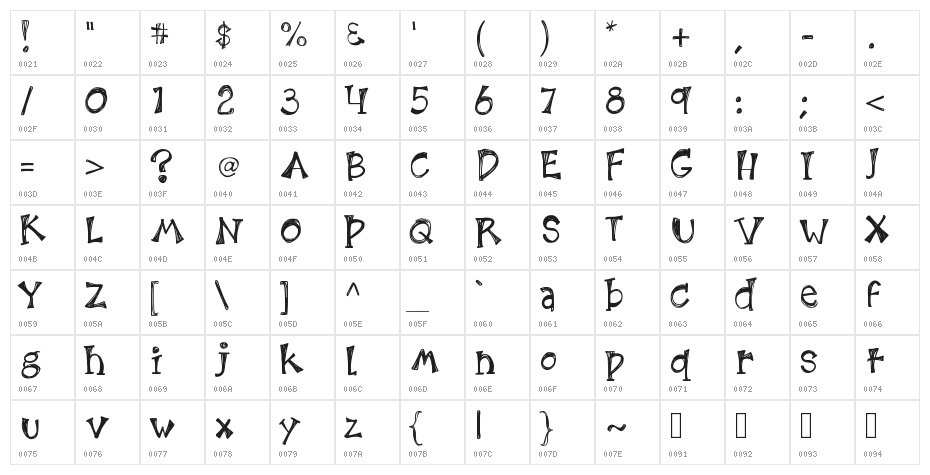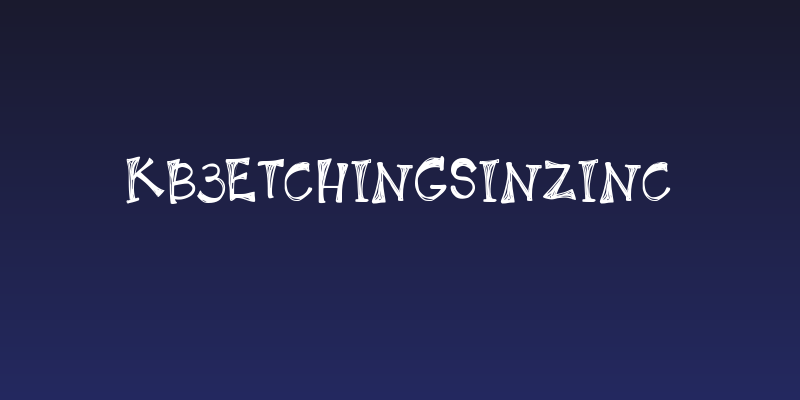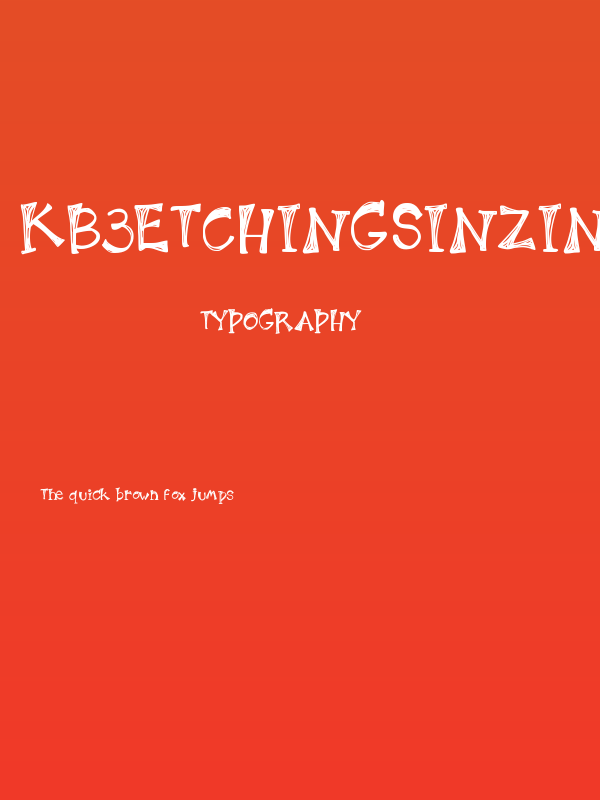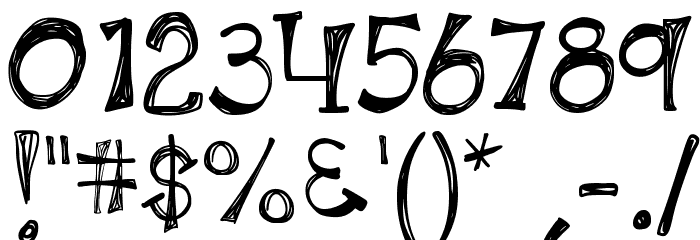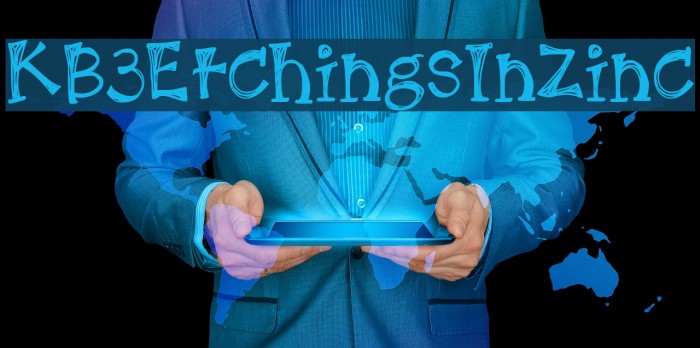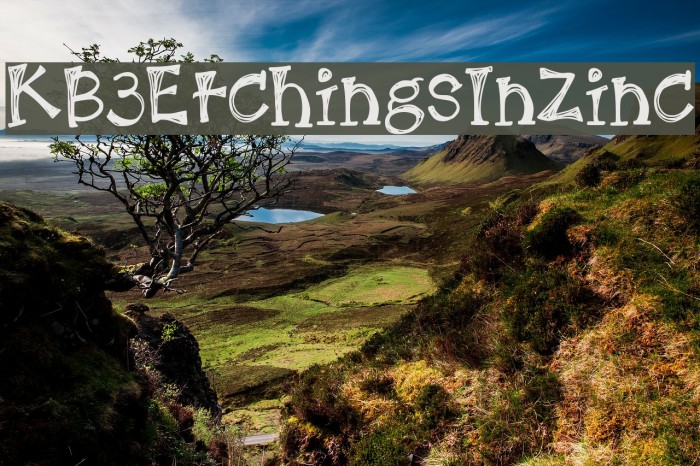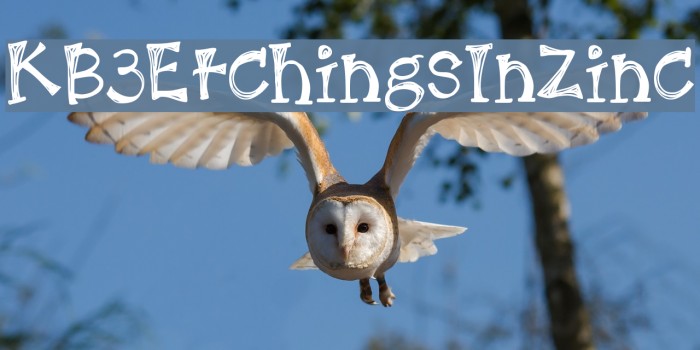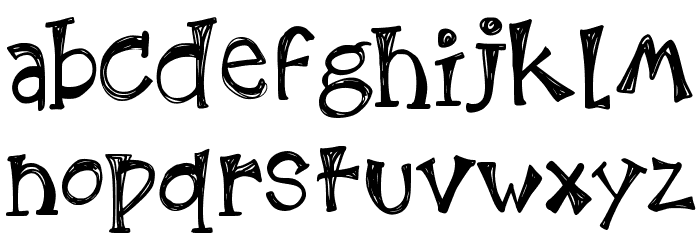
KB3EtchingsInZinc Font
KB3EtchingsInZinc Description
This font features a playful and artistic style, characterized by its hand-drawn appearance. Each letter is uniquely crafted with uneven strokes and a slightly rough texture, giving it a whimsical and informal feel. The uppercase and lowercase letters maintain a consistent design, with exaggerated curves and angles that add to its quirky charm. The numerals and special characters follow the same artistic theme, ensuring a cohesive look across all elements. This font's distinct personality makes it stand out, ideal for creative and fun projects.
| Proposed Projects | Ideal for children's books, creative posters, playful branding, and artistic invitations. |